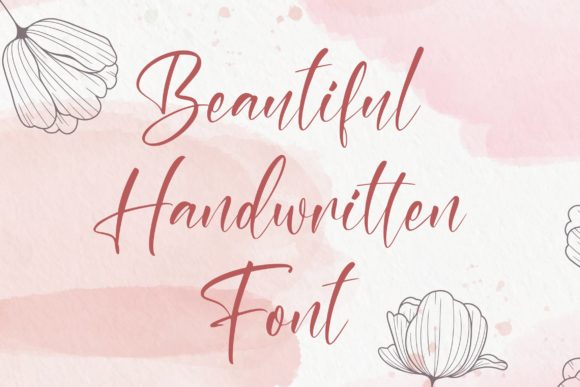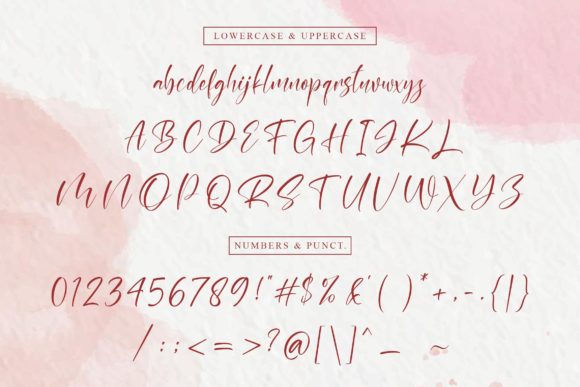
Introduction to Raissey Font
Raissey is a beautiful and refined script font.
It has a classy, elegant and modern look that can be used for logos, branding, invitations, stationery, wedding designs, social media posts, and much more .